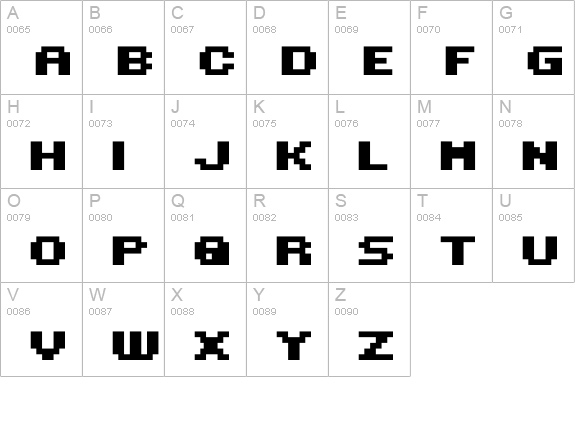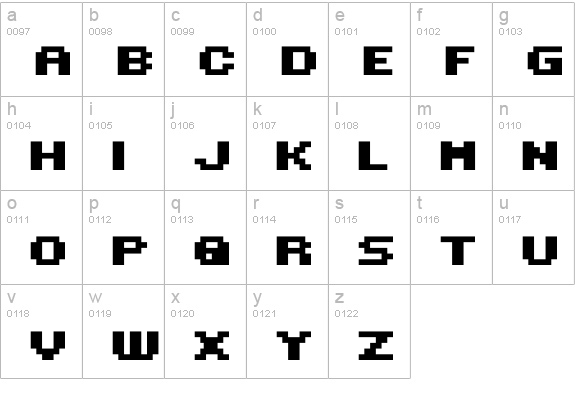
MINI 7 Bold is a strong, high-contrast variant in the MINI typeface family \xE2\x80\x94 well suited to headlines, attention-grabbing titles, and strong calls-to-action.
MINI 7 Bold font is a stylish and versatile typeface that exudes modernity and sophistication. Its bold and eye-catching design makes it perfect for a wide range of creative projects, from branding to marketing materials. With its clean lines and sharp edges, MINI 7 Bold font commands attention and adds a touch of elegance to any design. What sets MINI 7 Bold font apart is not just its striking appearance, but also the fact that it is available for free download at FontsMarket.com. This means that you can easily access this high-quality font without any cost, making it a valuable resource for designers and creatives alike. Whether you're working on a logo design, poster, website, or any other project that requires a bold and contemporary font, MINI 7 Bold font is sure to make a statement. Download it for free today and elevate your designs with this sleek and impactful typeface.